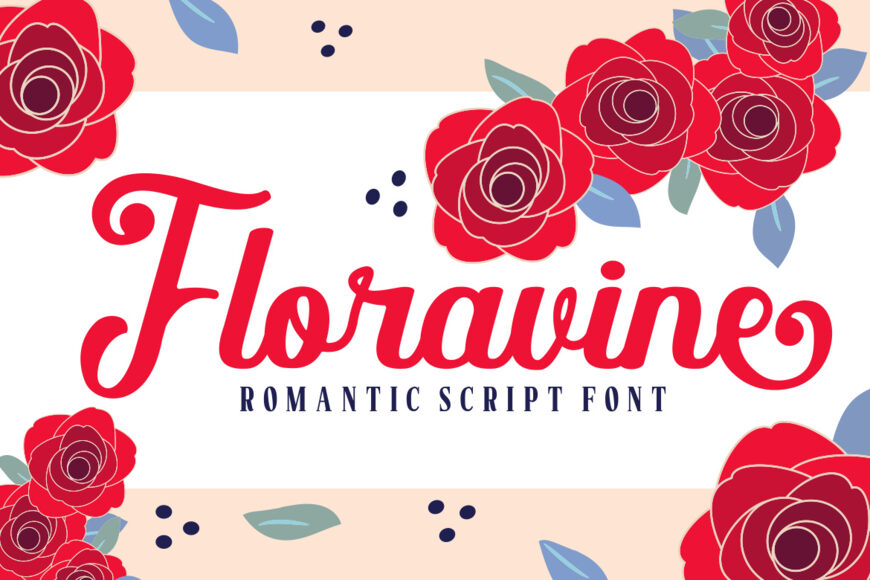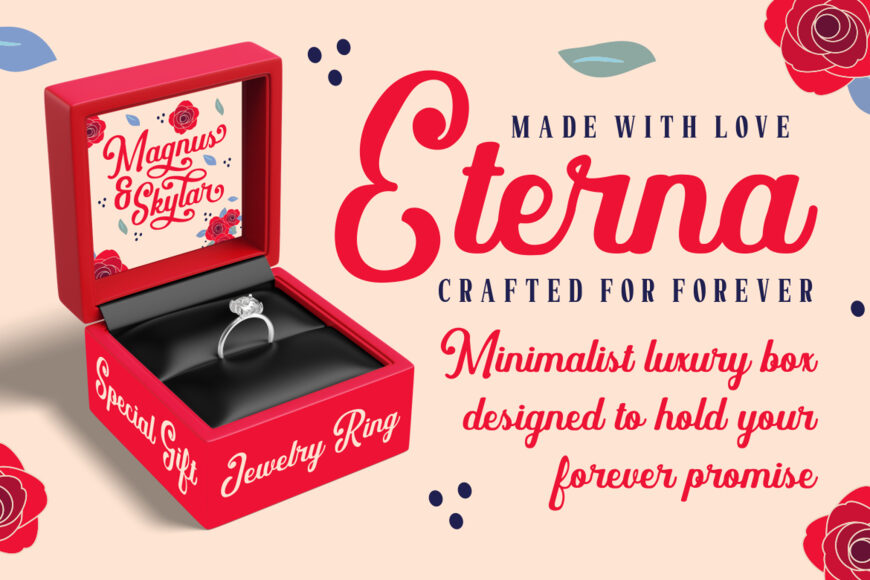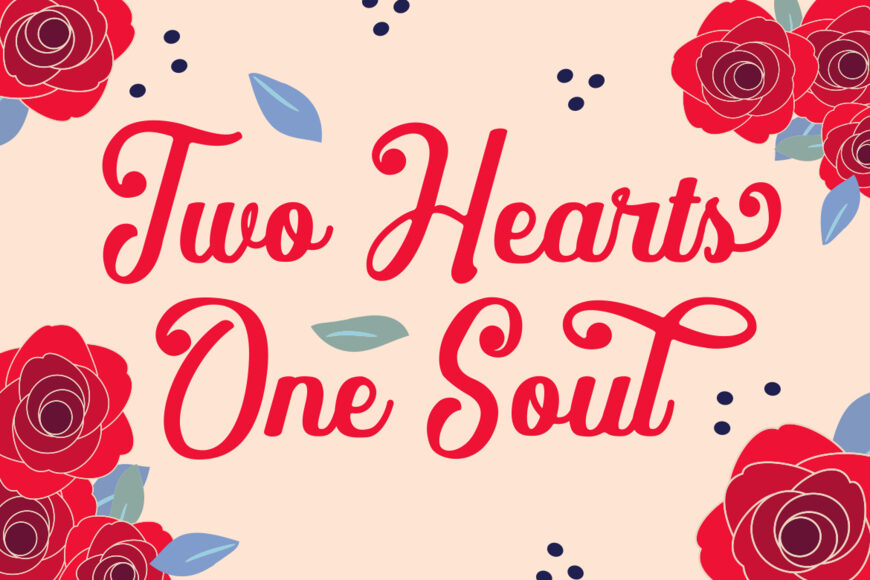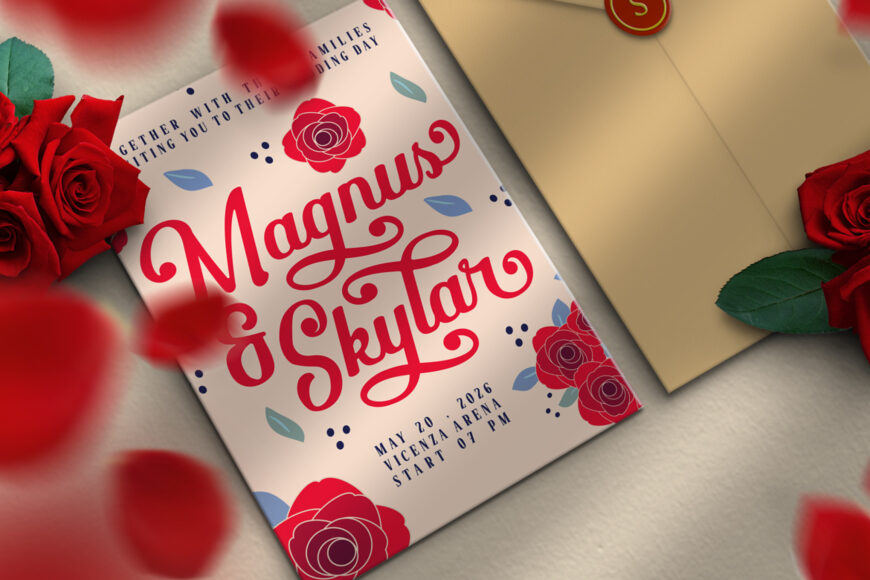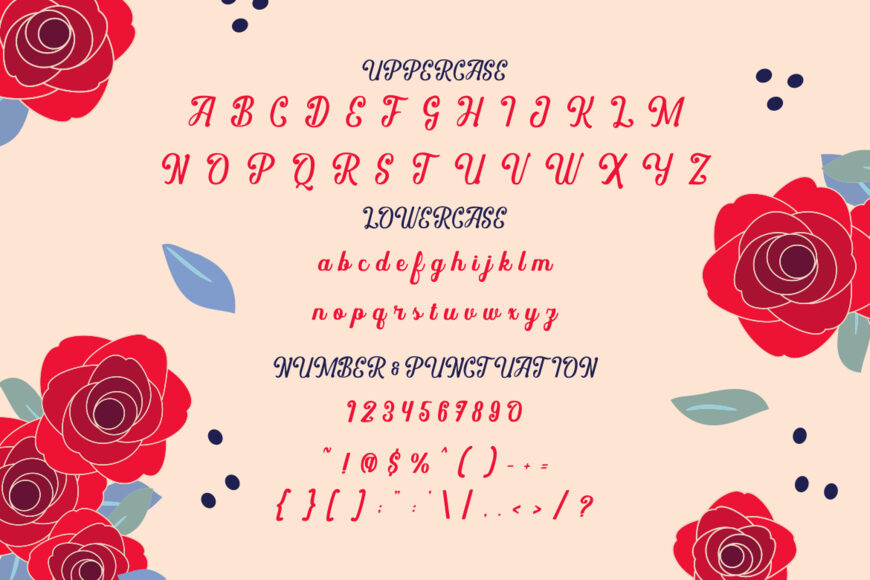
Floravine is a romantic script font inspired by elegant handwritten calligraphy. Its smooth curves, moderate weight, and well-balanced proportions create a natural flow from letter to letter. Soft transitions and gently bold strokes give the typeface a warm, personal feel, while tall ascenders and graceful loops add sophistication without compromising readability.
Combining contemporary script styling with classic calligraphic details, Floravine conveys love, warmth, and heartfelt emotion. It is ideal for wedding logos, romantic branding, invitations, and expressive headline designs.